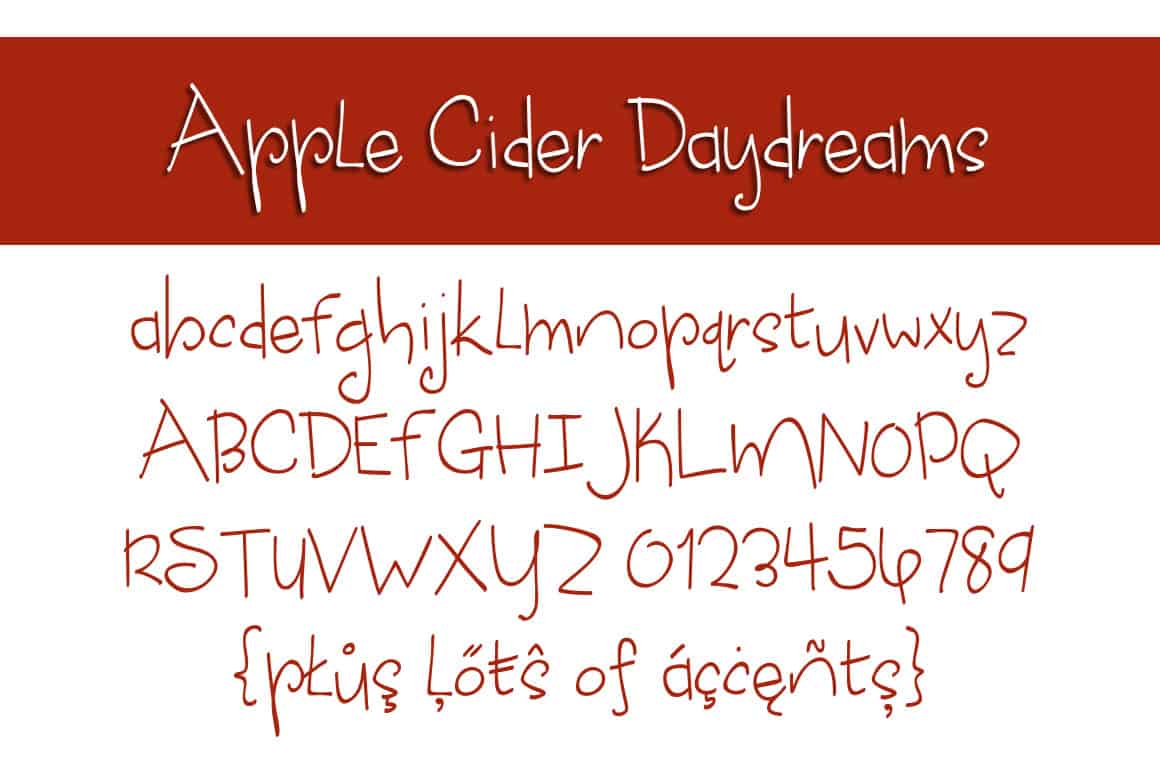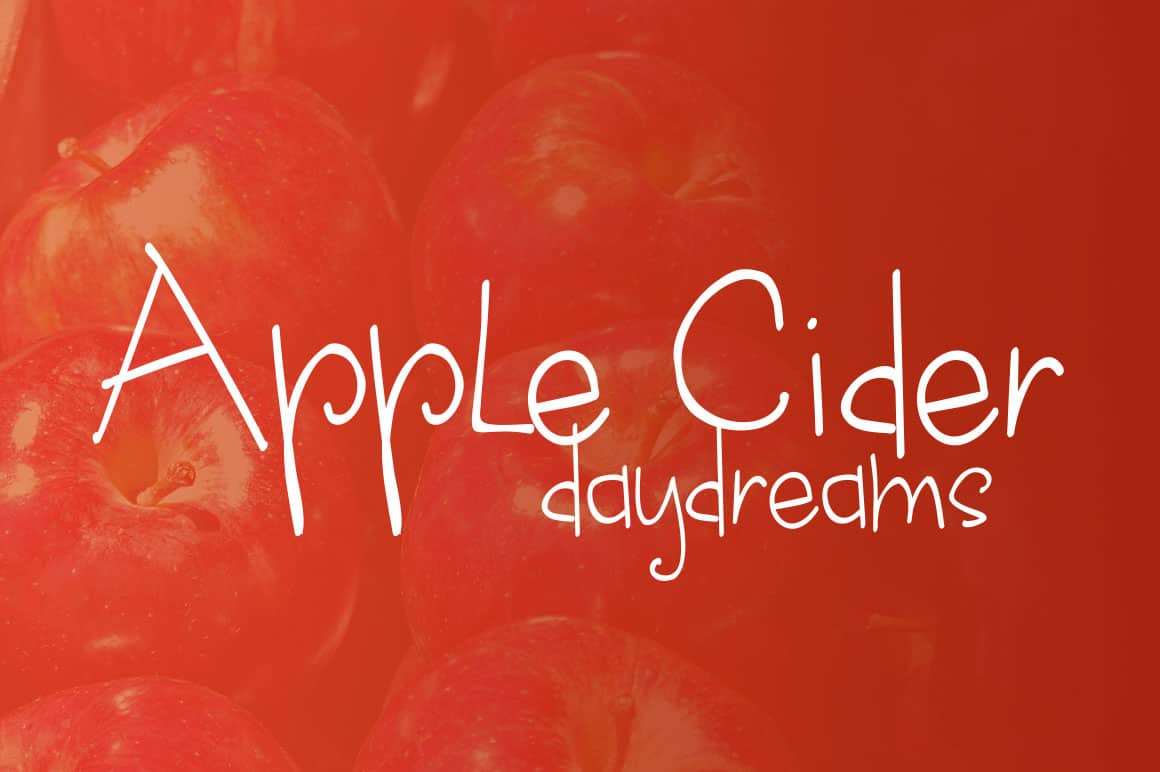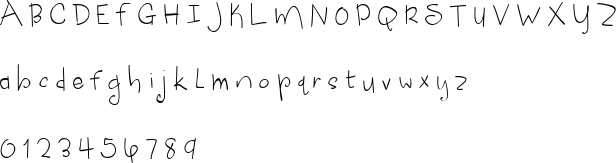
Apple Cider Daydreams
The Apple Cider Daydreams font is a thin handwritten font created in 2012 by Brittney Murphy Design and is part of the BMD classic collection. With 352 characters, the Apple Cider Daydreams font has support for most latin based languages. This font is great for giving any of your graphic design products a crafty feeling.